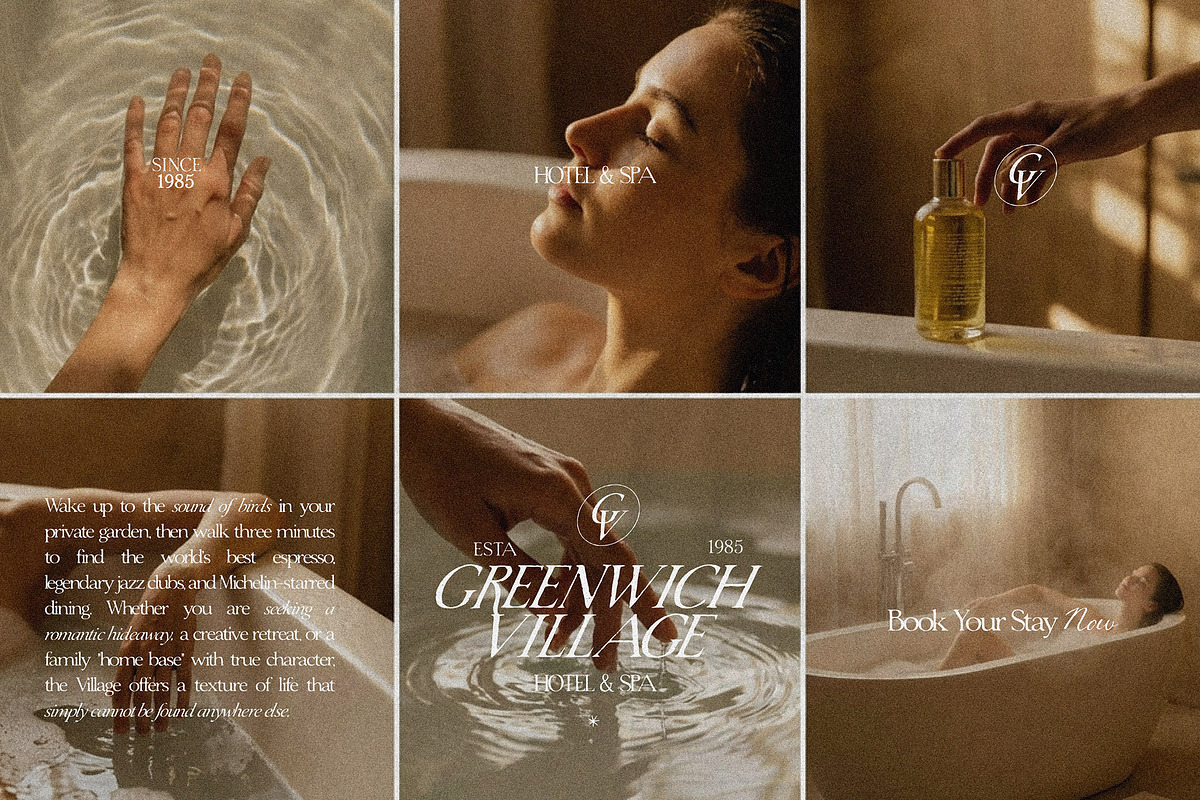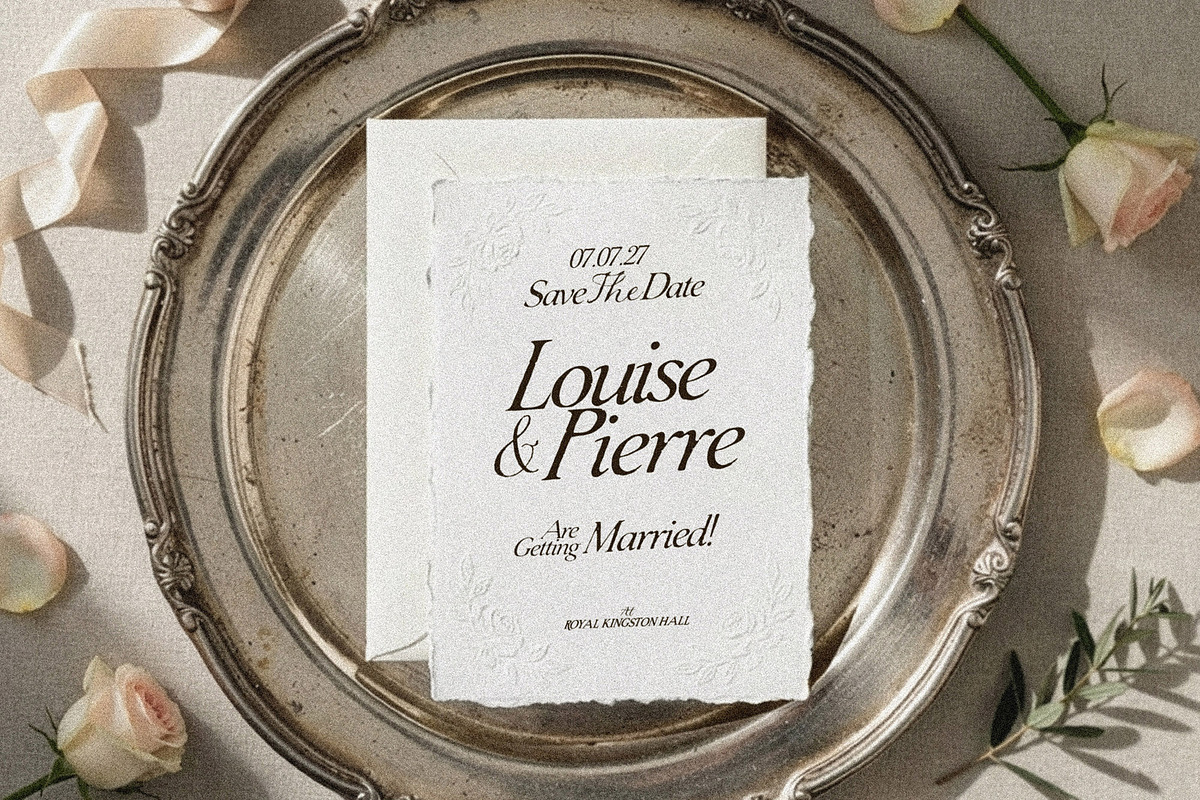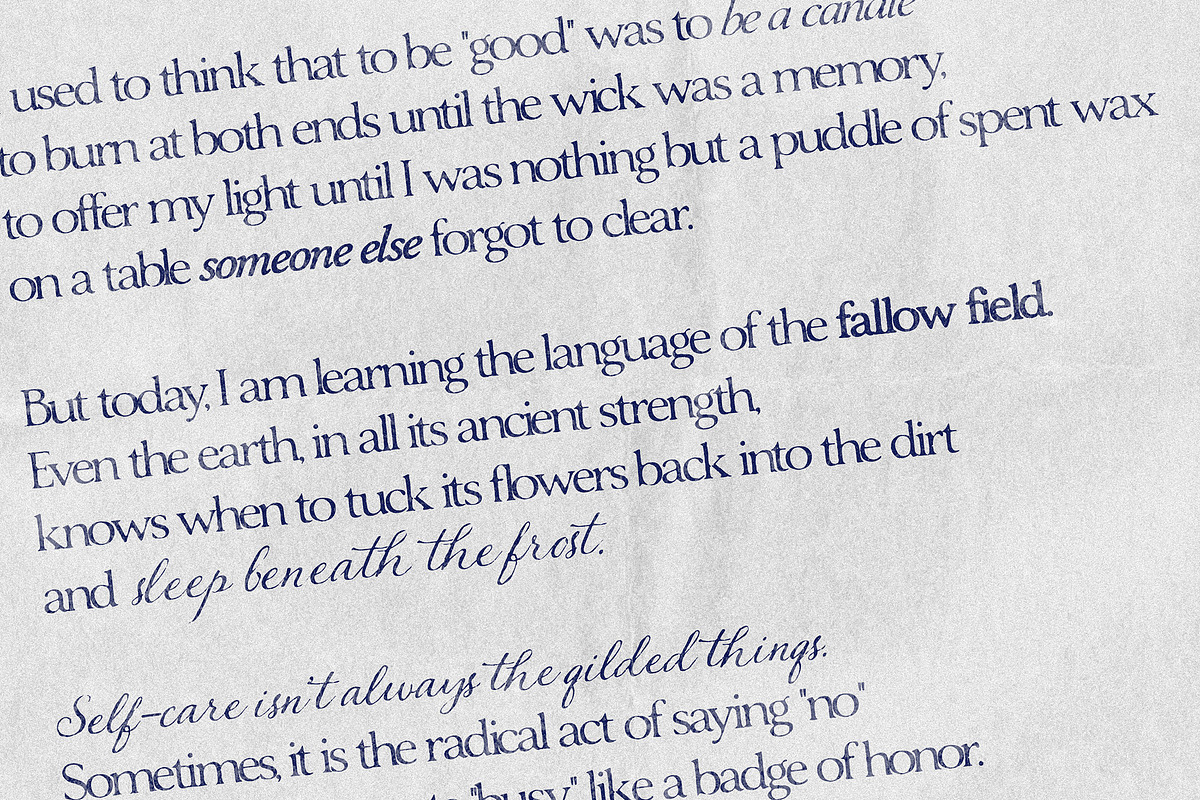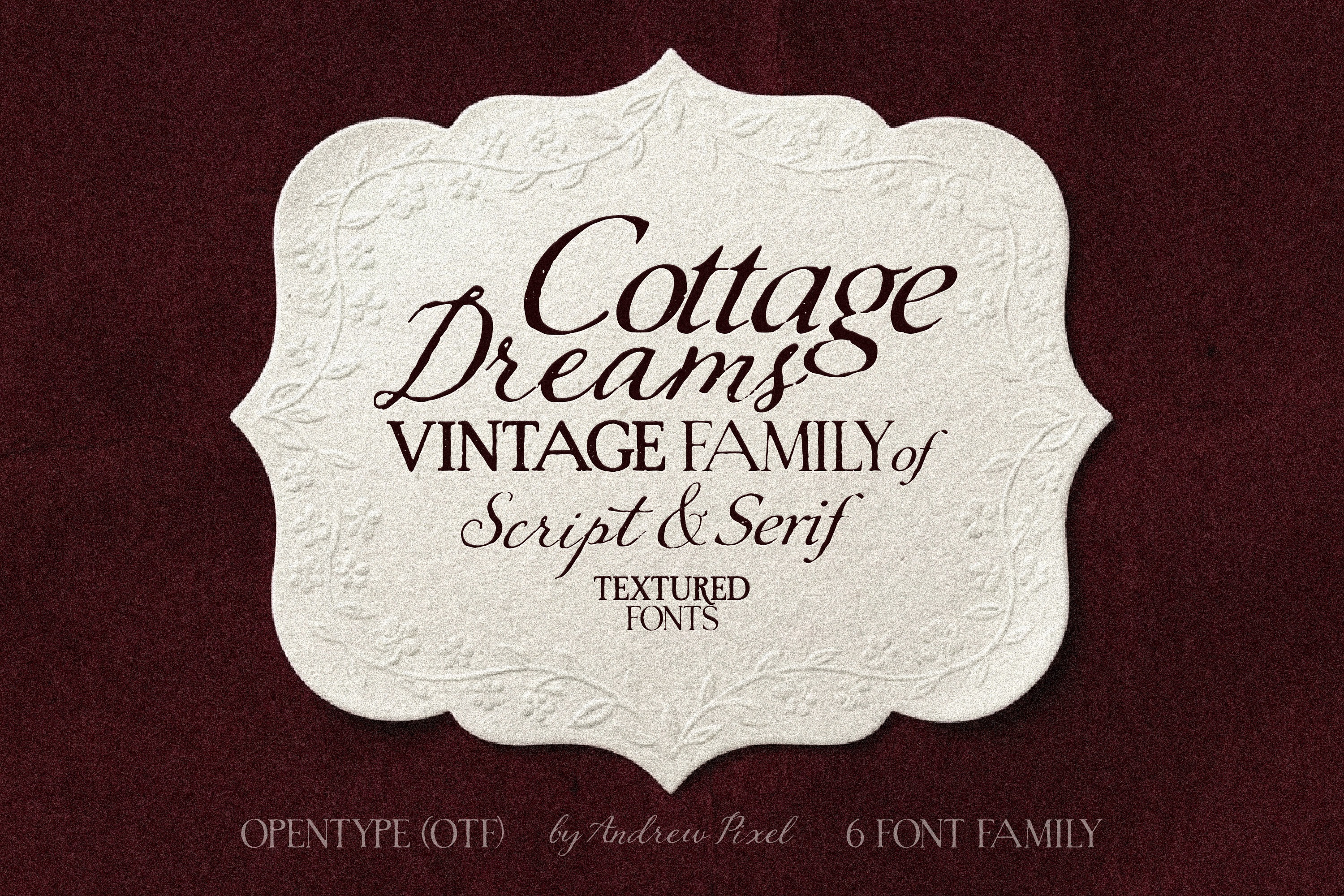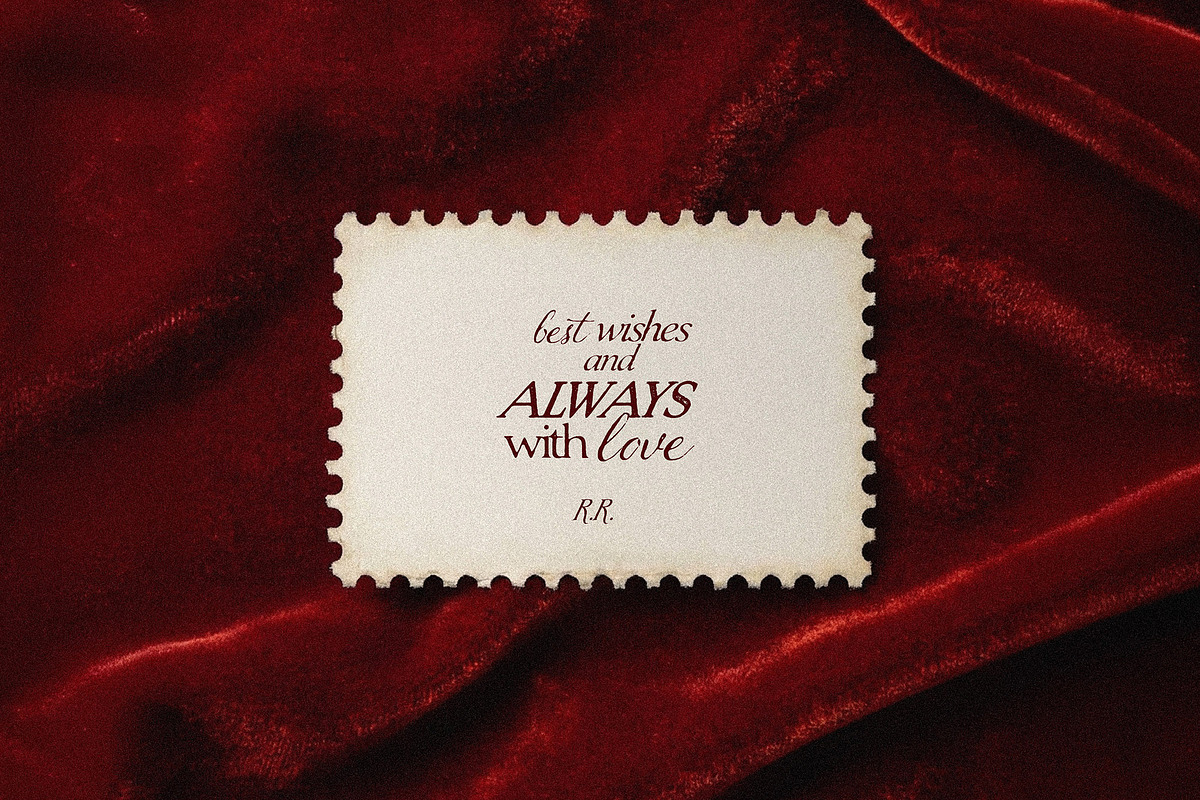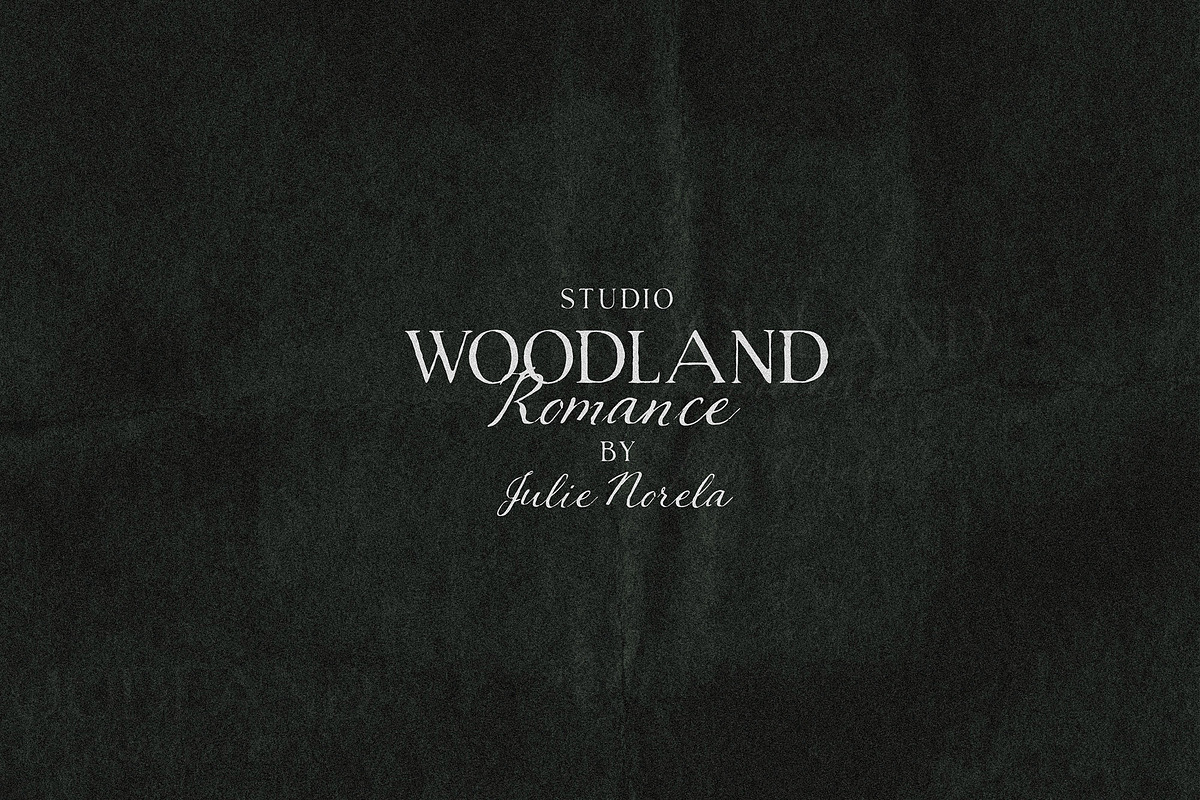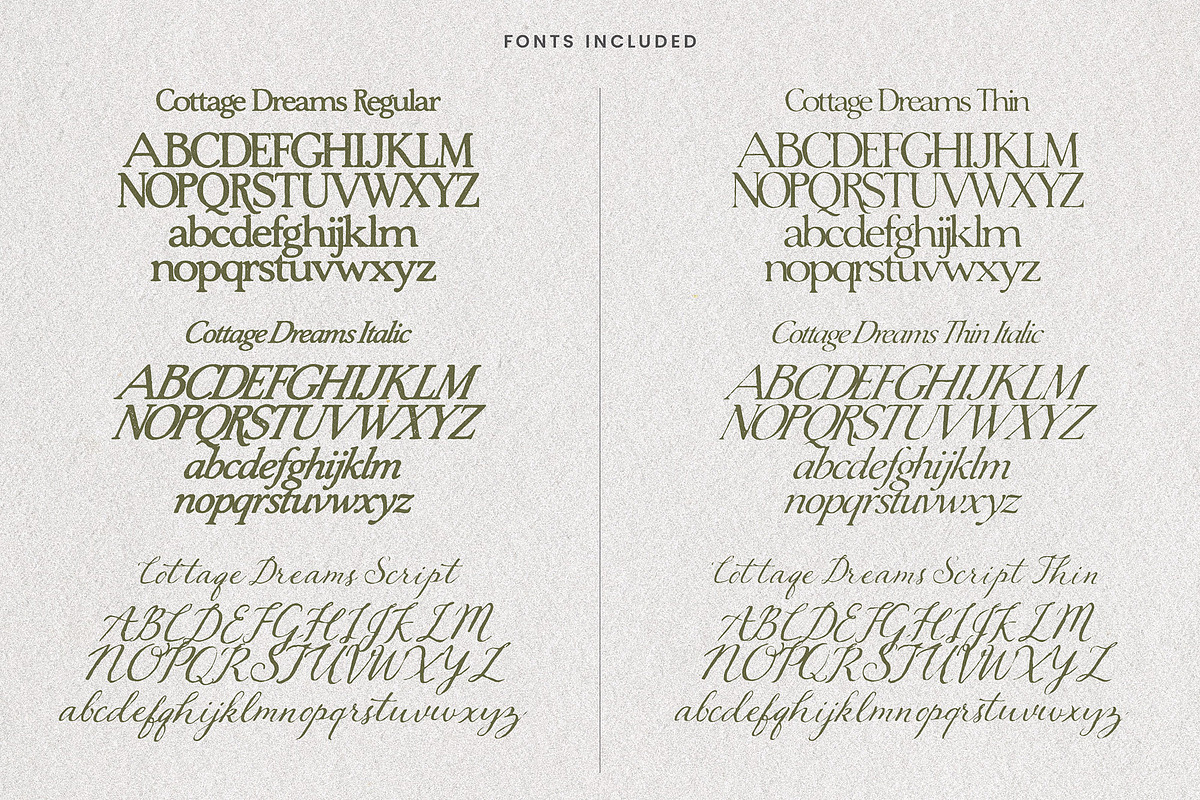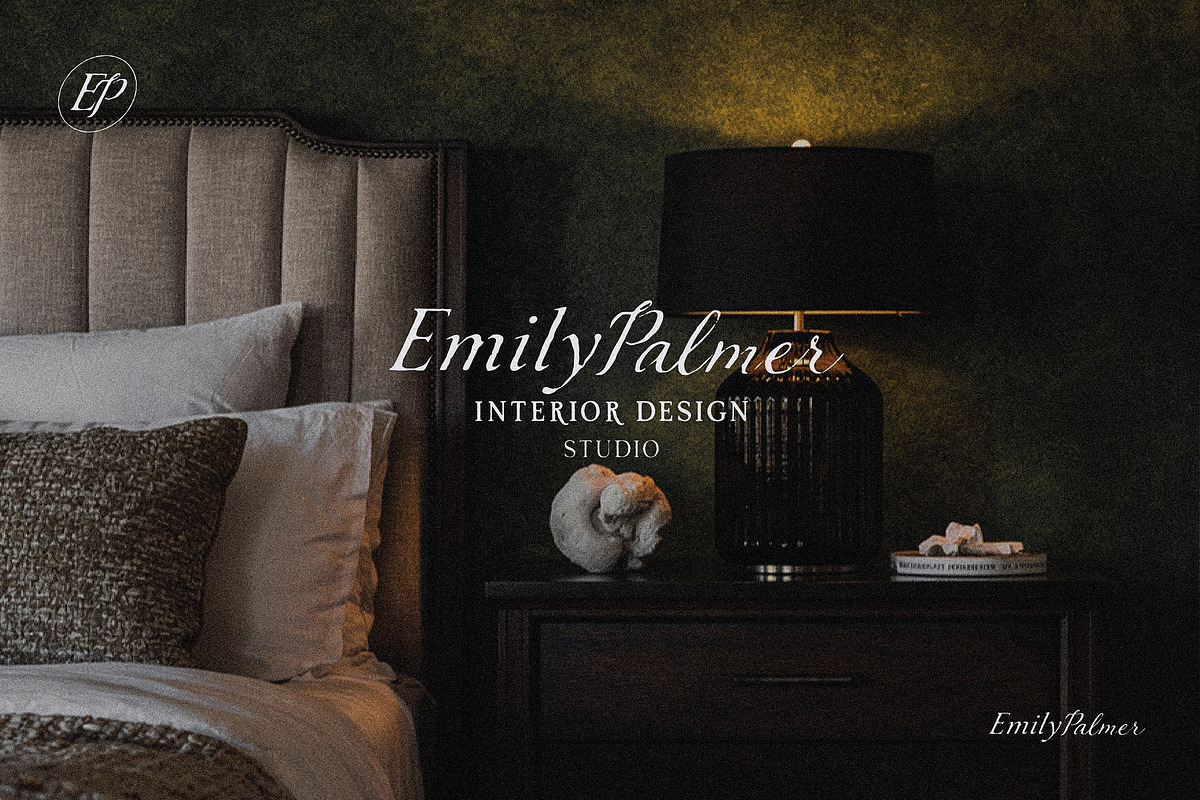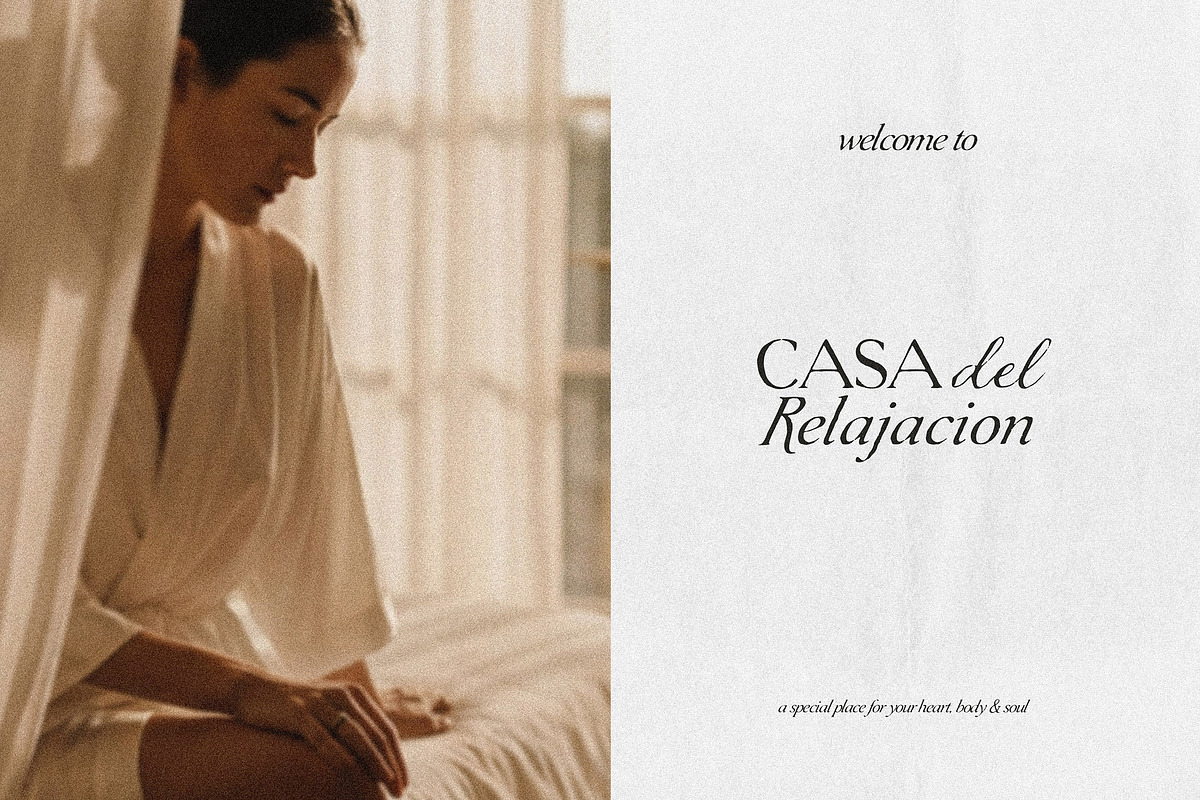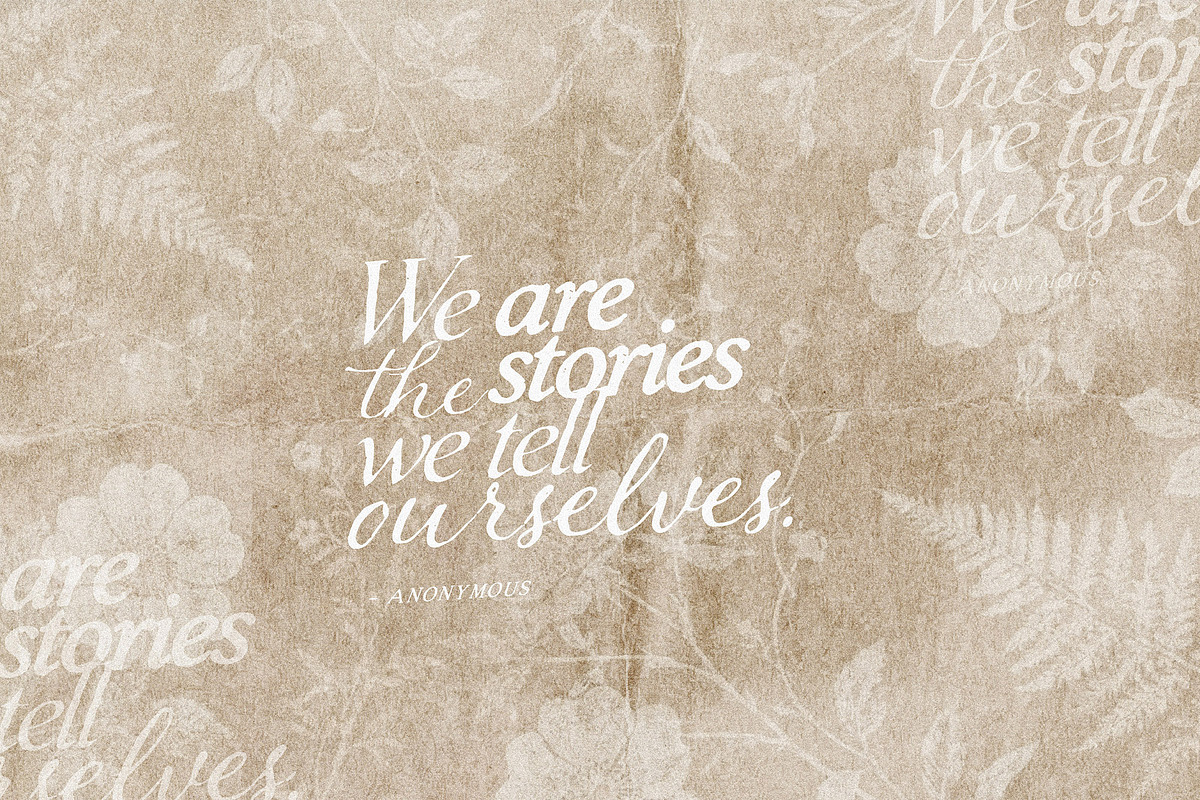
Cottage Dreams - Vintage Font Family
Cottage Dreams is a meticulously crafted, textured font family designed for the lovers of all things vintage.
Inspired by the "slow-living" movement and the cozy aesthetic of cottagecore, Cottage Dreams isn't meant to be perfect—it’s meant to be authentic. Each character features subtle imperfections and a weathered, "stamped" texture that mimics the look of ink on antique paper, giving your designs an immediate sense of history and soul.
Whether you are designing a label for a handmade apothecary line or a wedding invitation for a garden ceremony, this family of 6 fonts provides the perfect combination of elegant scripts and timeless serifs.
Branding & Logos: Perfect for florists, bakeries, handmade jewelry, and organic skincare brands.
Wedding Stationery: Create breathtaking invitations, "Save the Dates," and place cards with a romantic, heirloom feel.
Packaging Design: Ideal for candle labels, honey jars, apothecary bottles, and tea packaging.
Social Media: Elevate your Instagram quotes, Pinterest graphics, and blog headers with a warm, cozy vibe.
Home Decor: Use it for Cricut projects, wall art, kitchen labels, and DIY signage.
Editorial Design: Beautiful for magazine layouts, book covers (especially historical fiction or poetry), and lookbooks.